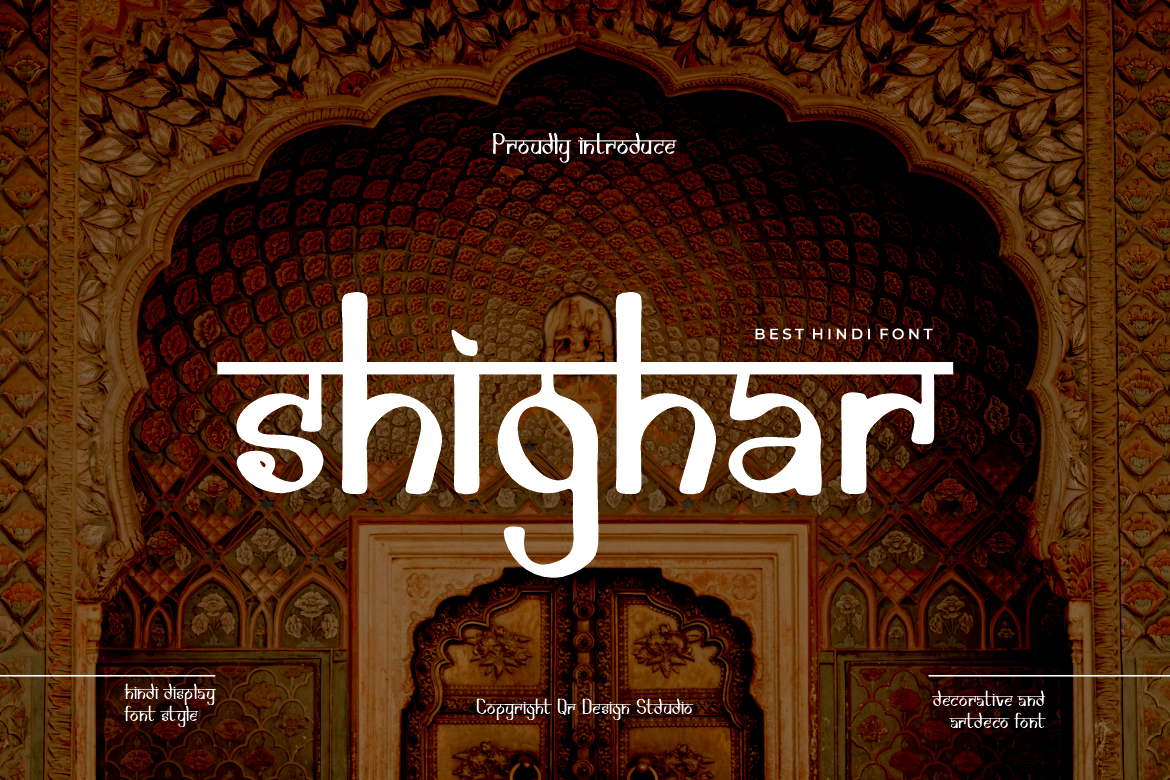
Shighar - Artdeco & Hindi Font
Shighar Font is a hindi and authentic display font. The font is suitable for any branding project like poster, logo, sport, and many more. Outstanding in a wide range of contexts.